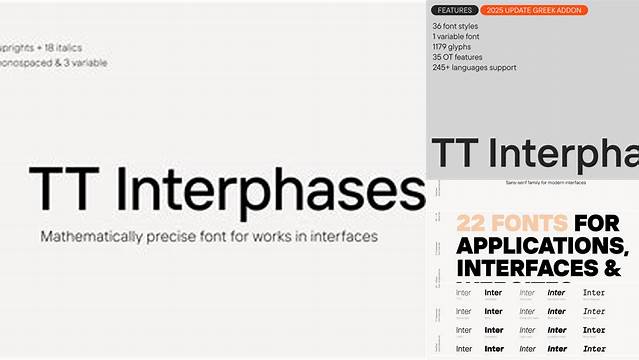
H2: Understanding TT Interphases Font: Features and Uses
Alright, before we jump into the download, let's take a moment to appreciate the TT Interphases font itself. What makes it so special? Why is it so popular? Basically, this font family, designed by TypeType, is known for its geometric and minimalistic design. It's super versatile, meaning you can use it for almost anything. Think websites, logos, posters, documents – you name it! It's got a clean, modern look that instantly grabs attention, but also remains easy to read. It comes in a bunch of different styles, from thin to bold, and even has italics, giving you a lot of creative freedom. You can really play around with it and make it your own. Its readability makes it a great choice for both headlines and body text. Many designers appreciate its neutral, yet strong character, which makes it perfect for projects that need a contemporary and professional feel. Plus, its extensive character set supports multiple languages, making it a globally friendly font. Its balanced design and clarity make it a reliable choice for any design project. Its simplicity allows the content to shine through, making it ideal for both digital and print applications. So, when you're thinking about using this font, consider its ability to convey clarity, modernity, and a professional aesthetic. This makes it an excellent choice for brands looking to communicate a sense of trustworthiness and forward-thinking.
When we discuss the uses of TT Interphases font, we find it employed in a wide range of projects. For instance, it's perfect for creating clean and modern websites, as its readability ensures a smooth user experience. Its geometric design is ideal for logos and branding materials, offering a professional and memorable look. Its various weights and styles also make it a top choice for designing posters, flyers, and other marketing materials. Moreover, it works great for documents and presentations, providing a sleek and contemporary look that keeps your audience engaged. The versatility of this font allows it to fit into any project, ensuring both aesthetics and functionality. With its unique features and broad applications, TT Interphases font is indeed a valuable asset for any designer. Whether you're a beginner or a pro, the flexibility and high-quality design of this font will help you create compelling visuals. Its adaptability to different design contexts means it can seamlessly integrate into various design styles. It really has something for everyone, no matter the project or the user’s needs. So, explore its potential, experiment with its styles, and find out how this awesome font can make your design dreams come true.
H3: Key Features of TT Interphases Font
Let's dive into the nitty-gritty details of the TT Interphases font. This font has some seriously cool features. First off, its geometric design is incredibly modern and stylish. This clean and simple design makes it easy on the eyes and works beautifully in both headlines and body text. The font family comes in a wide range of weights, from thin to extra bold, giving you tons of flexibility. You can use different weights to create emphasis and visual hierarchy in your designs. Another great feature is its extensive character set. It supports a wide variety of languages, so it’s perfect for global projects. You won’t have to worry about missing special characters or symbols. The font also includes italics, which adds another layer of versatility. With the italics, you can emphasize words and phrases. Another standout feature is its excellent readability. This font is clear and easy to read, even at small sizes. This makes it perfect for long blocks of text and complex designs. The font’s versatility allows it to fit into various design contexts. The range of features truly makes the TT Interphases font a powerful tool for any designer. It is a well-rounded font. You will appreciate the design and ease of use. The features, as a whole, elevate the quality of any design project. It's designed with user needs in mind. The design ensures both aesthetics and functionality.